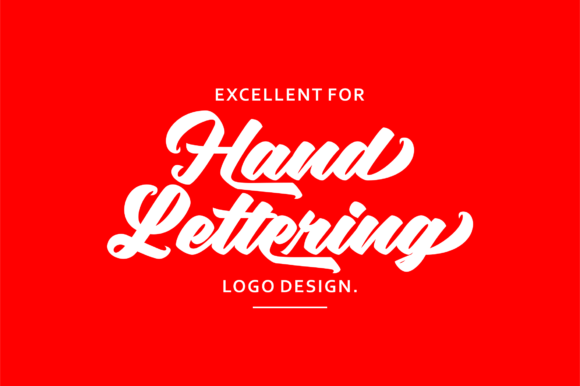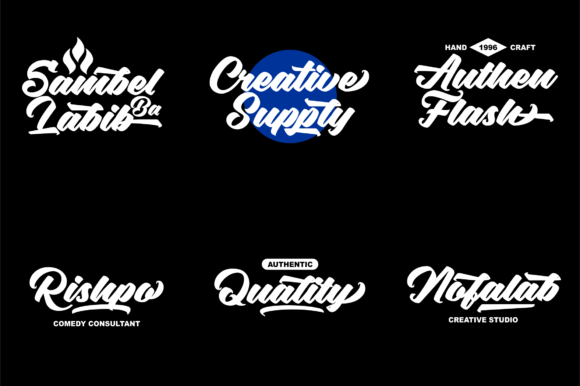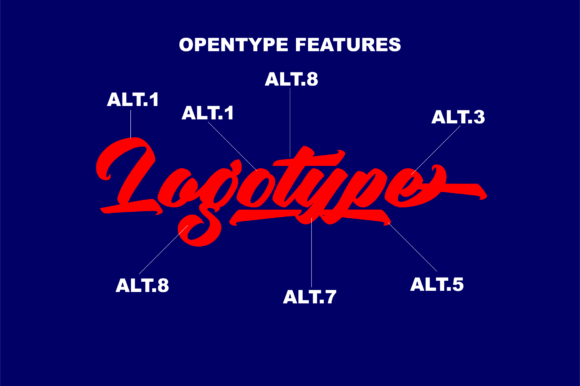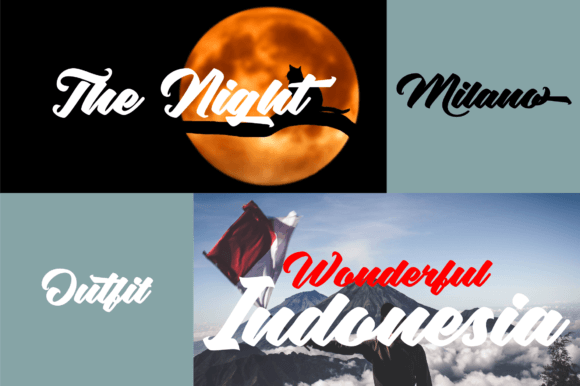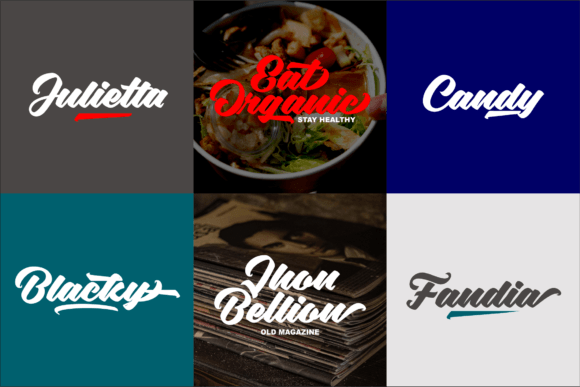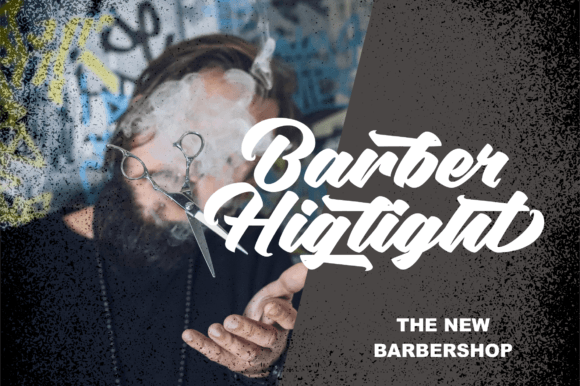
Introduction to Sambelethok Font
Sambelethok is an excellent font for modern hand-lettered logo designs.
Sambelethok is a font intended for logotype creation, but with its various glyphs, you can also create many other typography designs This font is great for logotypes, printed quotes, invitations, cards, product packaging, headers, posters, apparel designs, etc.